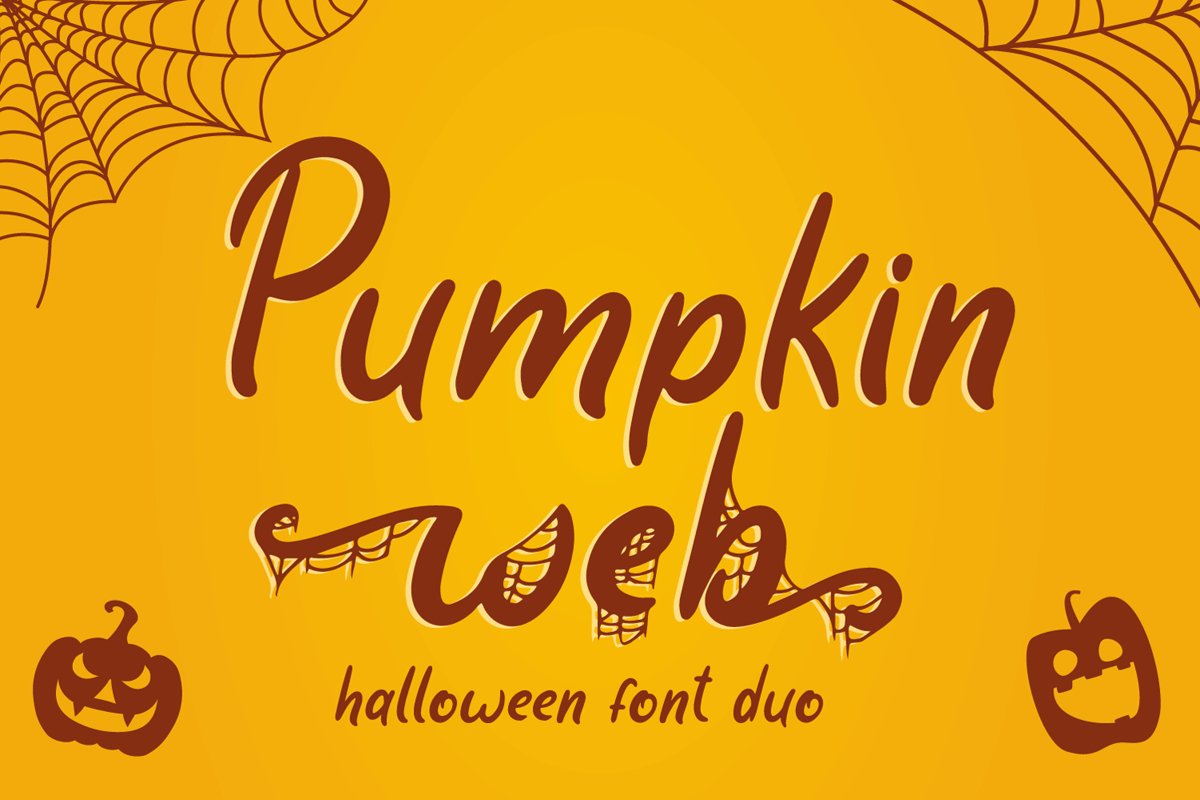
Pumpkin Web
Pumpkin Web is layered Halloween font duo with display font of spider web that perfect for any halloween events and promotions.
Pumpkin Web is perfect for branding, logo, invitation, stationery, social media post, product packaging, merchandise,
blog design, game titles, cute style design, Book/Cover Title and more.
- Beginning & Ending Swash